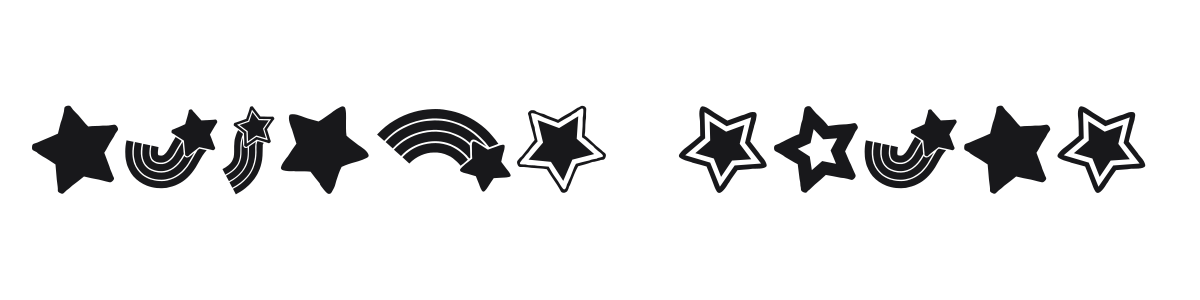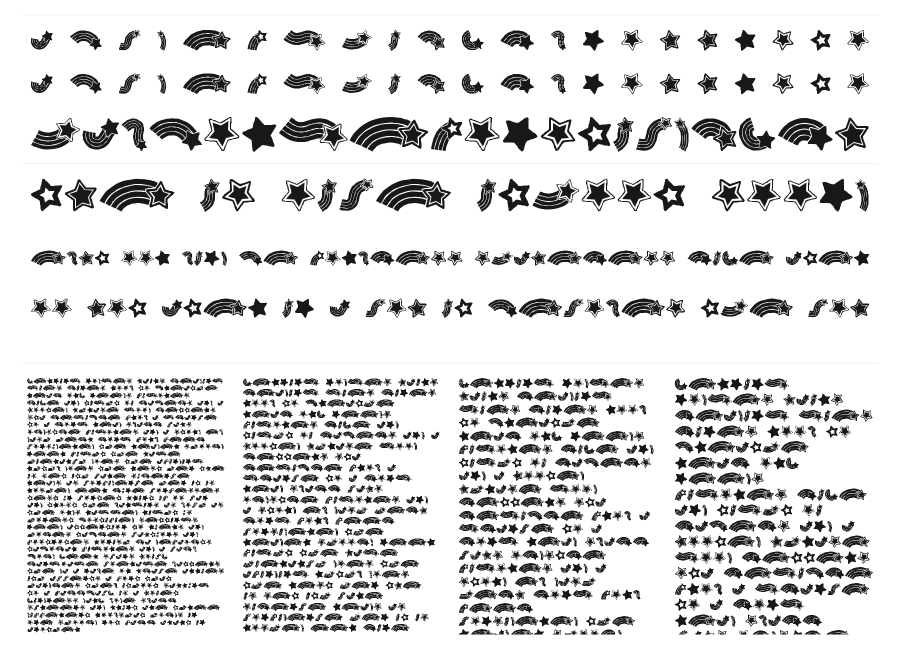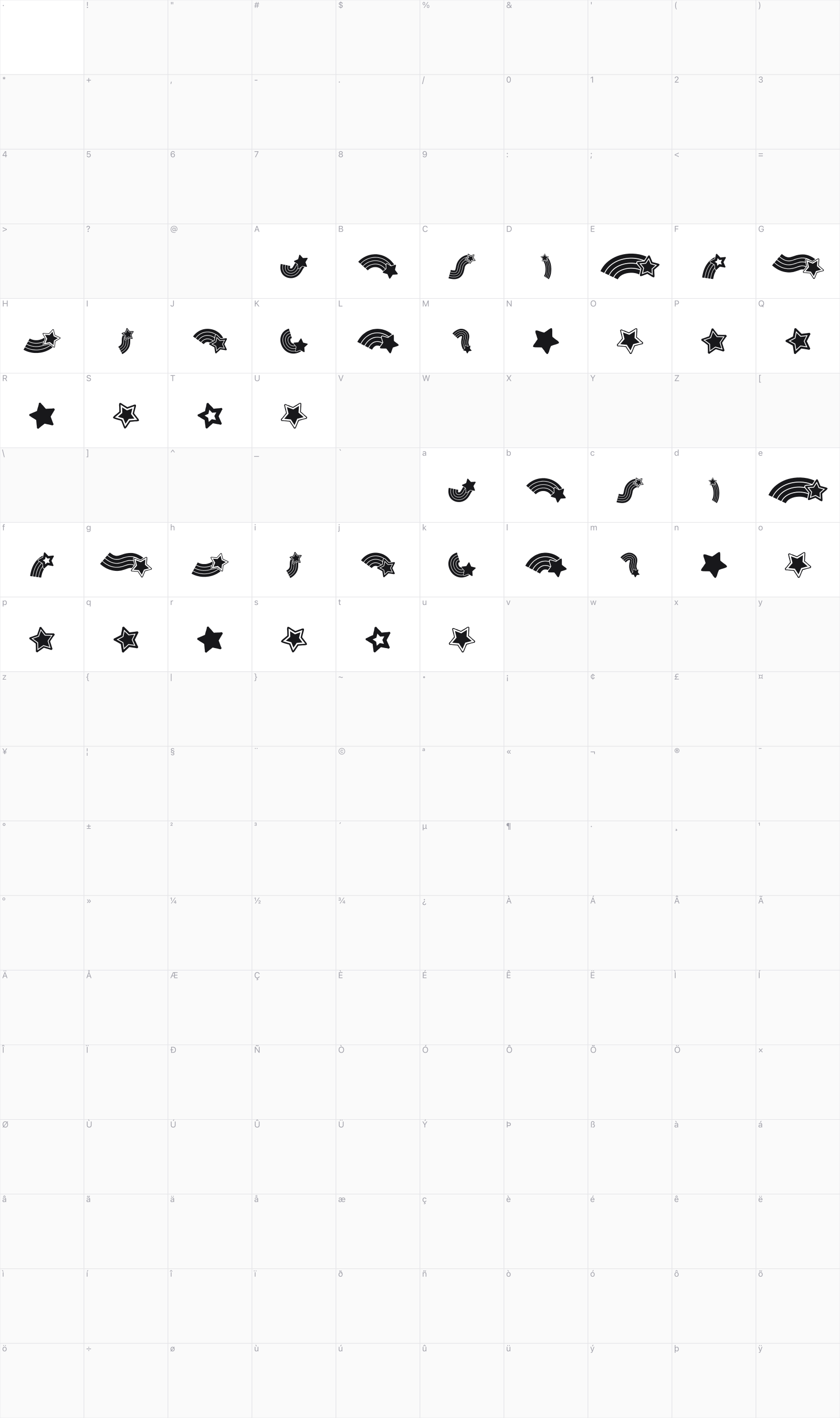
Rainbow Stars
Rainbow Stars is a dingbat font built from a collection of stars and rainbow symbols in both filled and outline styles. The chunky, monoweight silhouettes mix shooting stars, classic five-pointed stars, and arcing rainbows into a versatile set of decorative marks. Great for adding a nostalgic, feel-good sparkle to packaging, social graphics, or children's design.